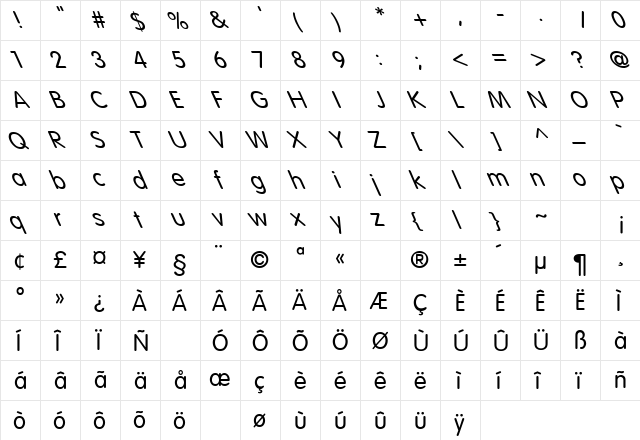
VAGRounded-Light Lefti Regular Font Preview
Design Context for VAGRounded-Light Lefti Typeface
VAGRounded-Light Lefti uses gentle rounded endings to create a warm, inviting typographic personality — less corporate than geometric sans, more refined than playful display fonts. The delicate stroke weight brings airiness and refinement to layouts.
A natural fit for tech startups, health and wellness brands, children's products, and friendly consumer apps.
Font Pairing: Pairs well with a rounded or humanist sans for body copy, maintaining the friendly tone without relying on VAGRounded-Light Lefti to carry extended reading.
Pro Tip: Pair VAGRounded-Light Lefti with a geometric sans for a balanced system — the rounded softness works as a warm counterpoint to harder-edged companions.